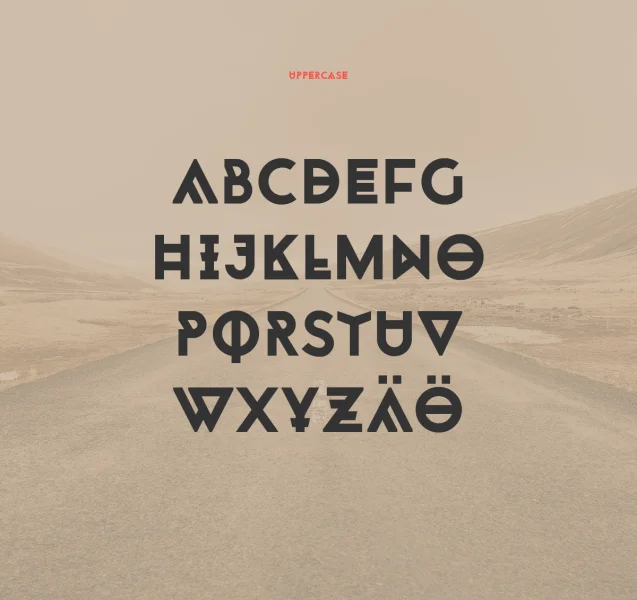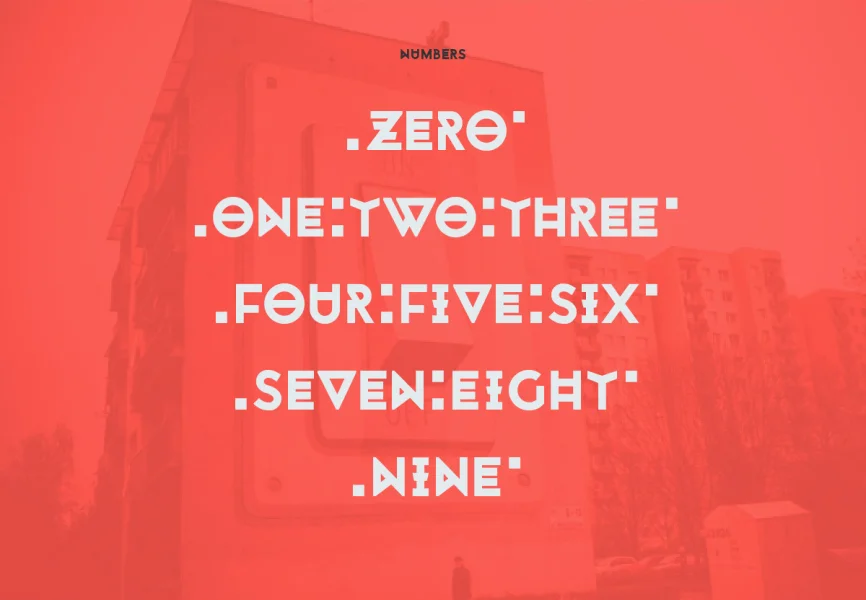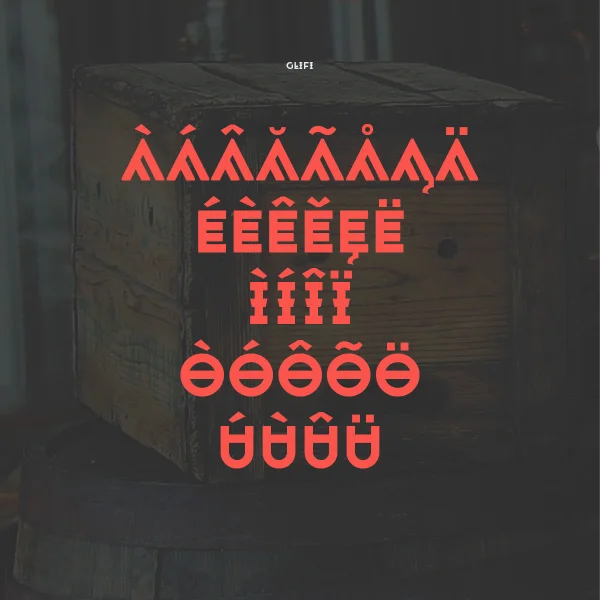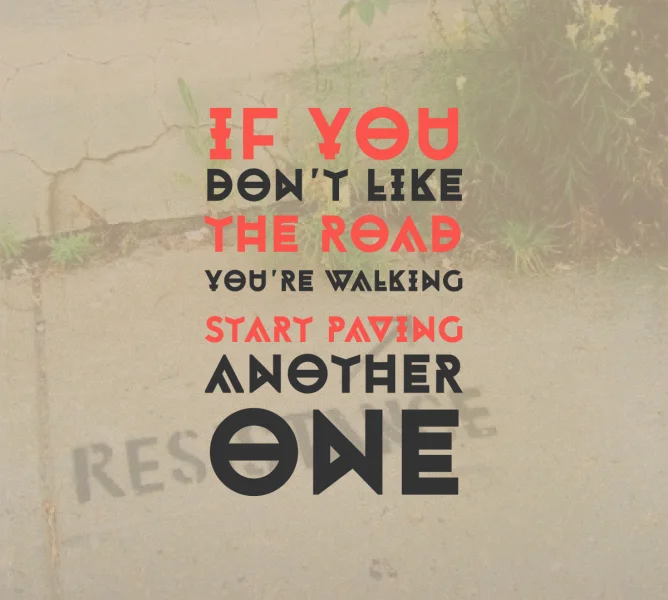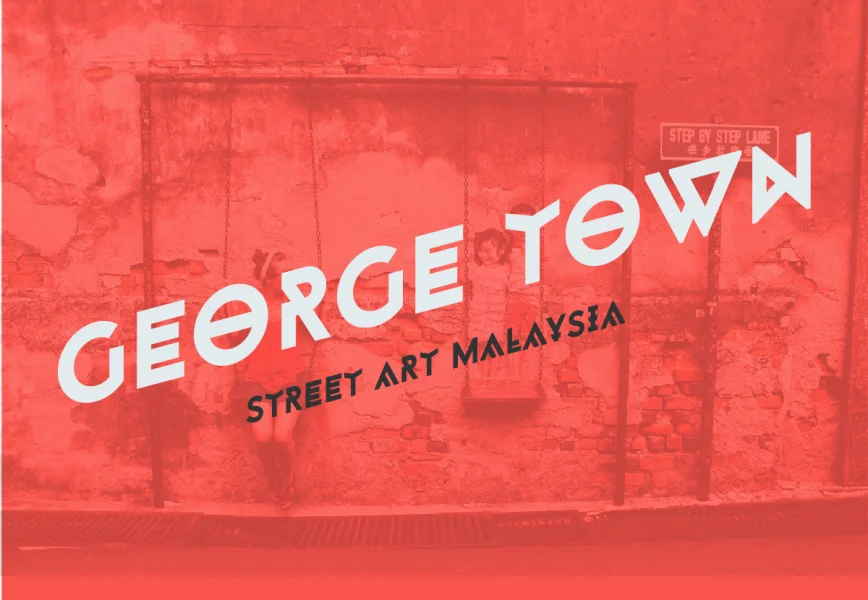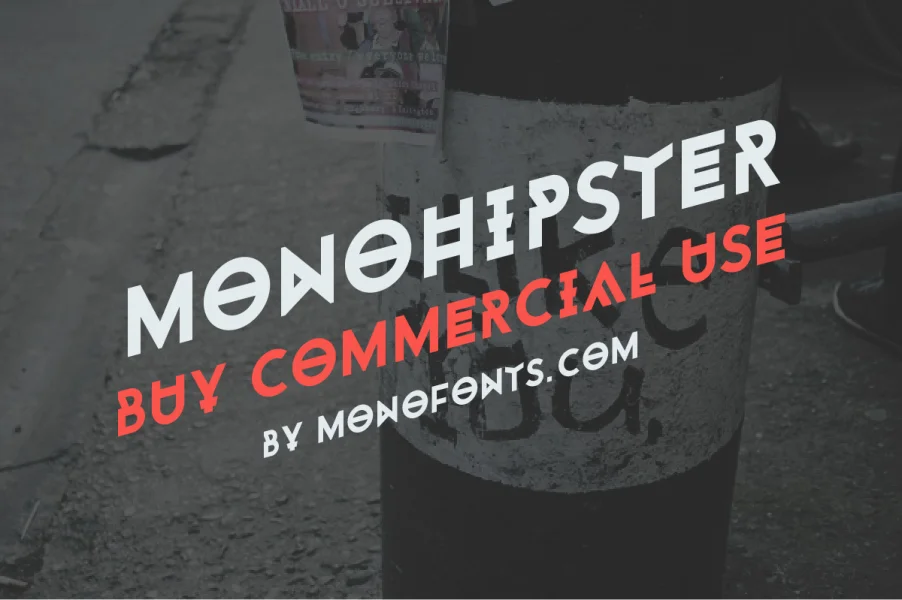
Monohipster is a Display Decorative Font designed for Monocromo website. Designed after the aesthetic hipster culture of recent years, Monohipster looks at the shirt’s patterns but, at the same time, keeps a personal feel using unconventional shapes. It is a declared Display Font that only has Uppercase letters but comes with a lot of diacritics to obtain different effects, essential punctuation and two kind of numerals: ENG – ITA.
Monohipster Family:
Monohipster Regular